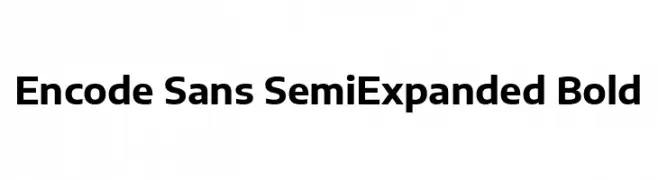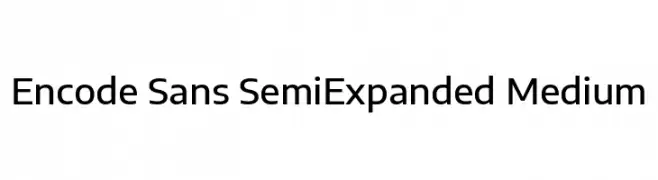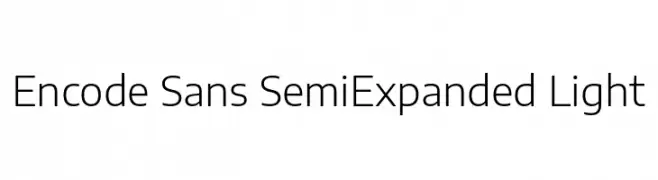
( Fonts by Impallari Type )
A bold, semi-expanded sans-serif font with a modern and clean design.
( Fonts by Impallari Type )
A modern, semi-condensed sans-serif font with consistent stroke weight.
( Fonts by Impallari Type )
A bold, modern sans-serif font with a semi-condensed style and minimal contrast.
( Fonts by Impallari Type )
A bold, semi-expanded typeface with a modern and robust design.
( Fonts by Impallari Type )
A modern, semi-expanded sans-serif font with excellent readability and balanced design.
( Fonts by Impallari Type )
A modern, thin sans-serif font with a semi-condensed style and excellent readability.
( Fonts by Impallari Type )
A modern, light sans-serif font with semi-expanded width and excellent readability.